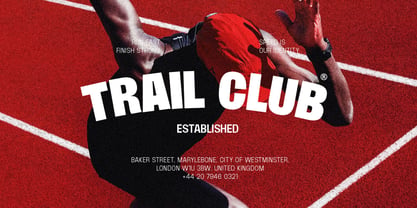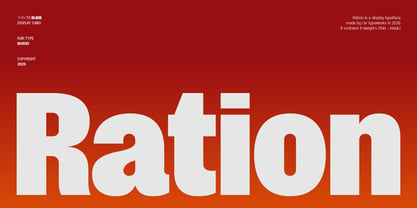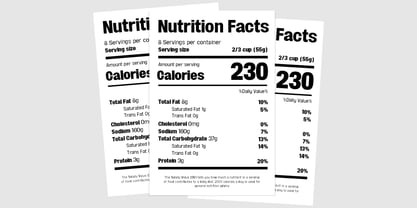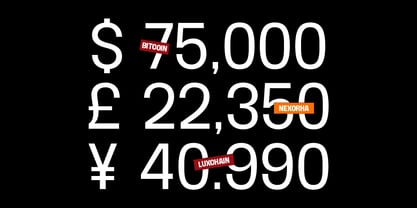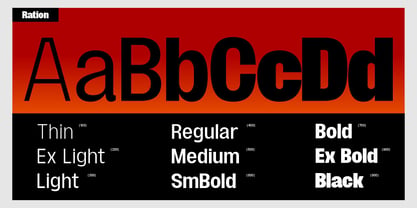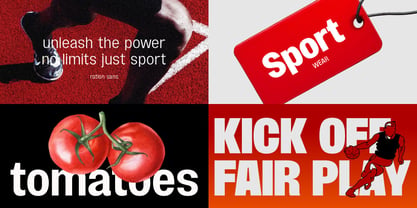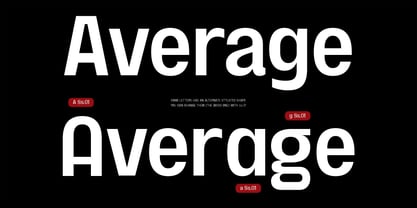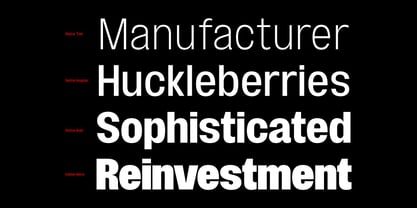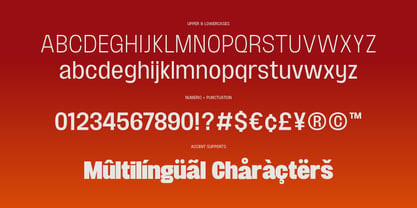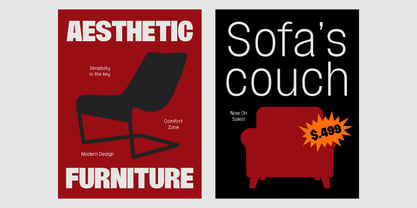
Ration
The Ration Font Family was designed by Restu Angga Romansah and published by Rar Typeworks. Ration contains 9 styles and family package options. More about this family
Ration is a modern display sans serif typeface designed by RAR Typeworks in 2026. Built with clarity and impact in mind, Ration features bold, geometric forms and a strong visual presence, making it ideal for headlines, branding, posters, and digital use. The typeface comes in 9 carefully crafted weights, ranging from Thin to Black, allowing for versatile typographic expression across various design needs. Its balanced proportions and clean construction ensure readability while maintaining a distinctive and contemporary character. Ration is designed to stand out confident, minimal, and highly adaptable for both creative and commercial projects.